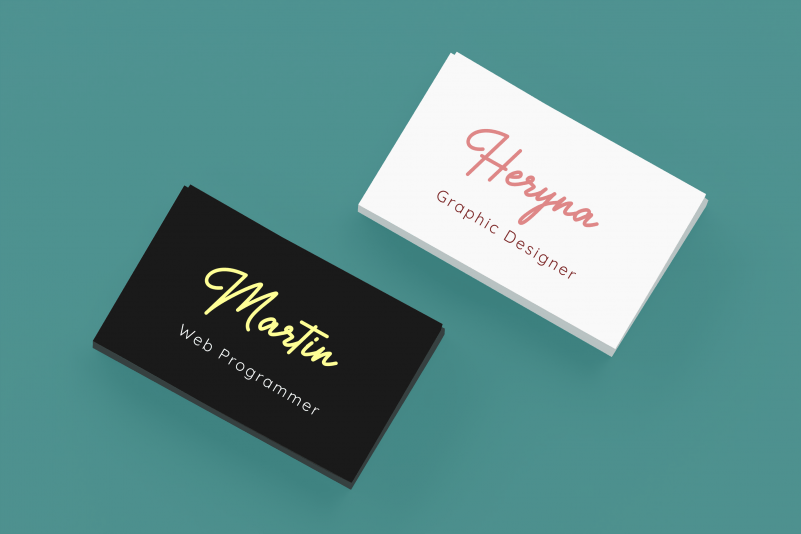
Authentica Monoline Script Font
Hi, introduce my new monoline font, Authentica. Made with hard work 🙂
She has a signature style that gives off an elegant and simple impression. Authentica is very suitable for use in various design projects, such as quotes, photography, invitation cards, clothes designs, stickers and others.